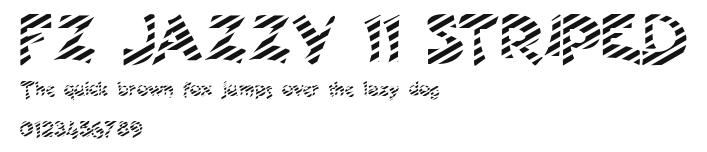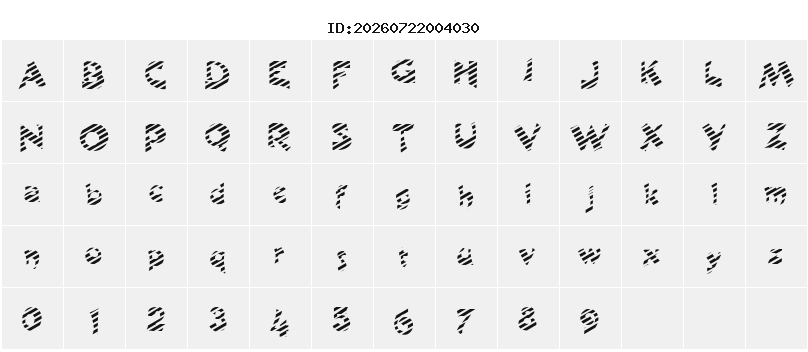
About FZ JAZZY 11 STRIPED.ttf
FZ JAZZY 11 STRIPED.ttf is a modern, elegant sans-serif font designed for ultimate readability and visual harmony. Perfect for branding, headlines, web design, and print materials.